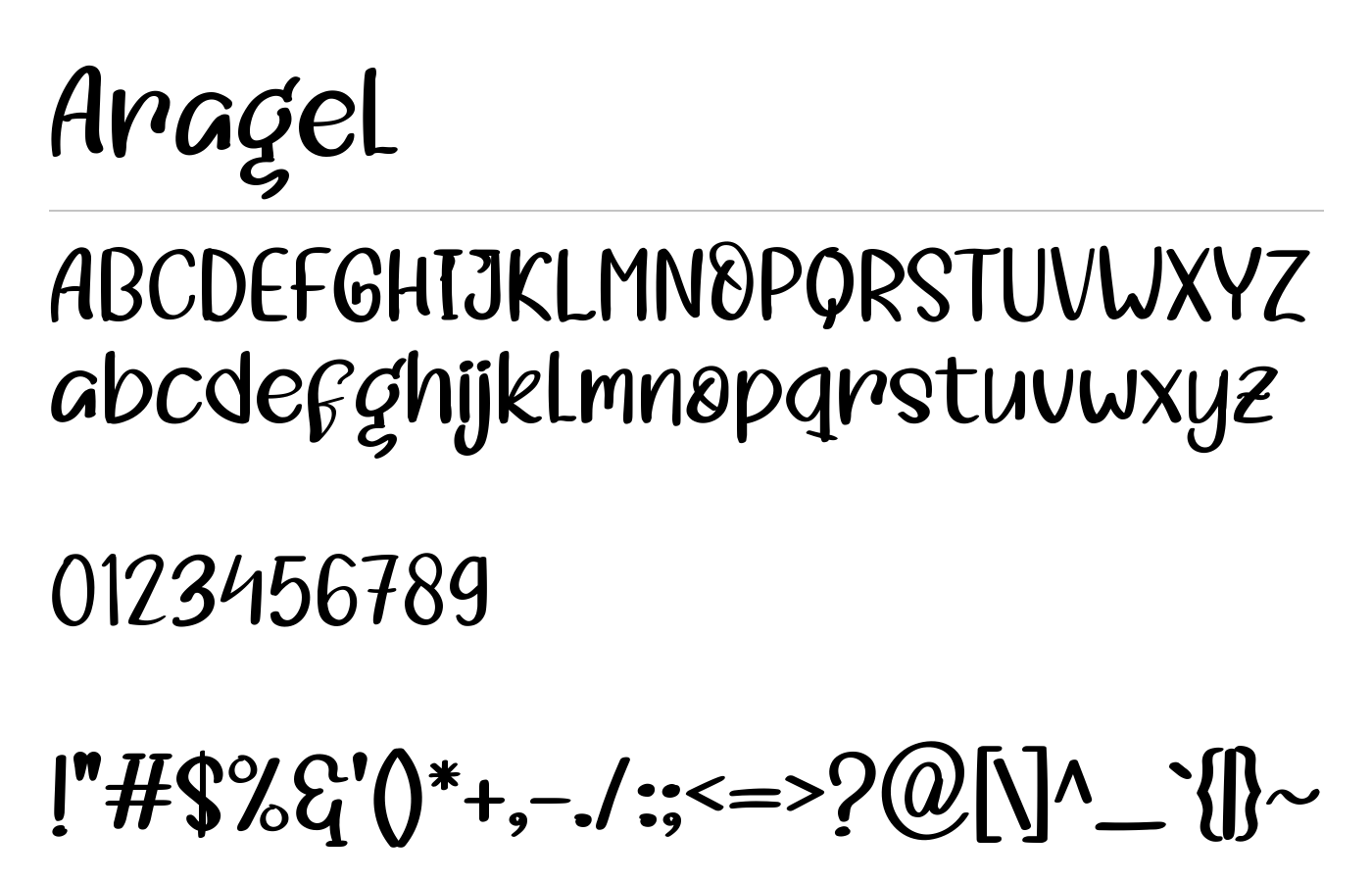
Aragel is a playful and lively handwritten sans serif font that features a medium weight and a slightly condensed width, giving it a casual yet defined presence. Its smooth, slightly rounded strokes and quirky letterforms, such as the distinctive tails and loops on characters like "g" and "Q," lend it a friendly, approachable personality perfect for creative and informal designs. This font works wonderfully in branding, packaging, and headlines where a personal, warm touch is desired.
Aragel Font
About Aragel Font